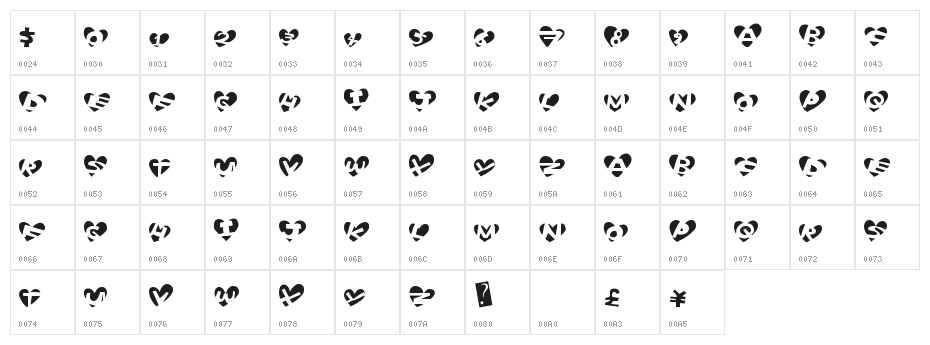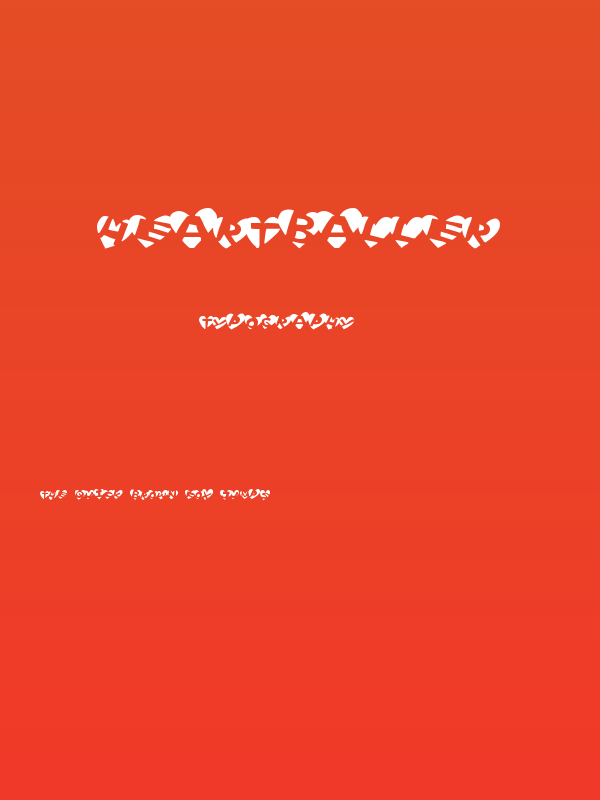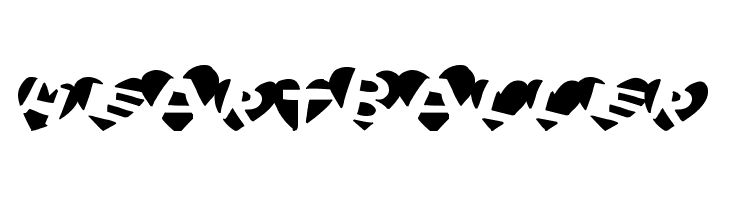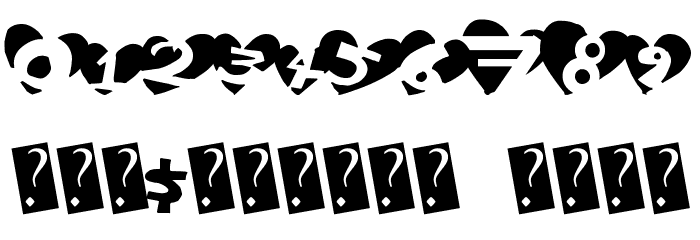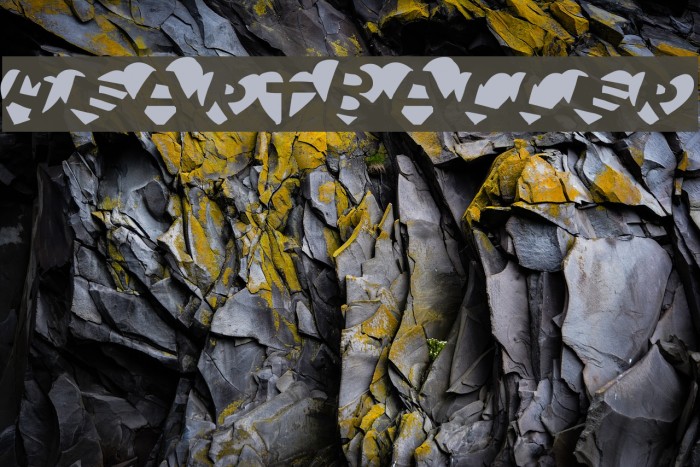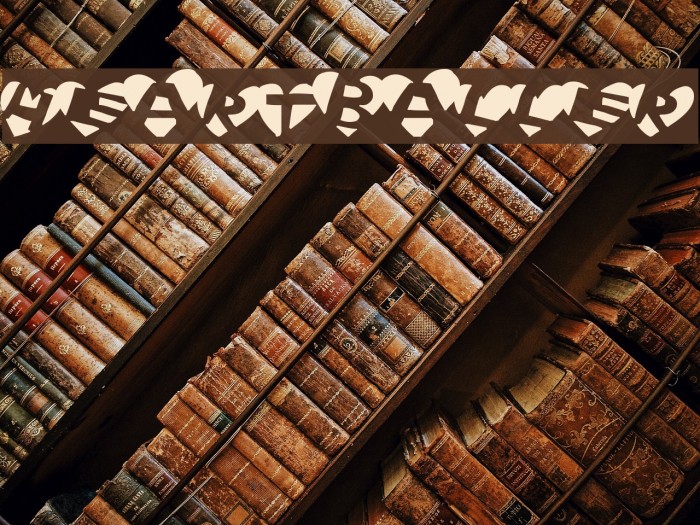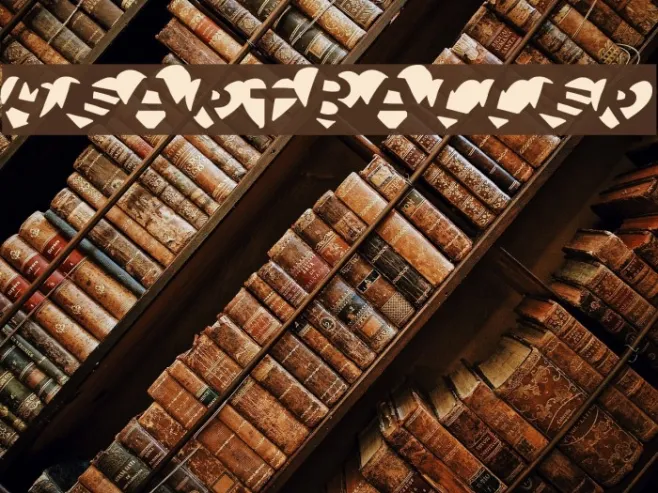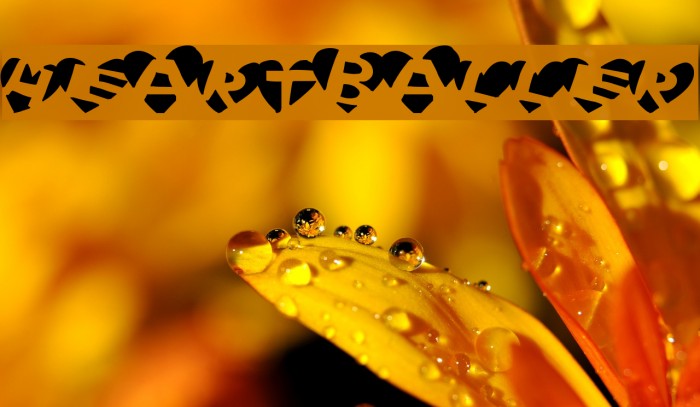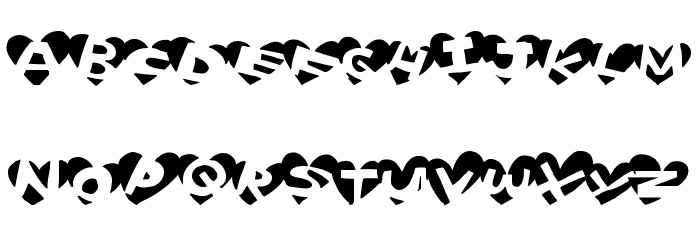
HeartBaller Font
HeartBaller Description
This font is a playful and decorative typeface that incorporates heart shapes into the design of each character. The letters are bold and have a whimsical, romantic feel, making them stand out with their unique heart-themed embellishments. The uppercase and lowercase letters maintain a consistent style, with each character featuring heart motifs either as part of the letterform or as accents. The numbers and special characters follow the same design principles, ensuring a cohesive look across all glyphs. This font is ideal for projects that require a touch of love and creativity, such as Valentine's Day cards, wedding invitations, or romantic-themed branding.